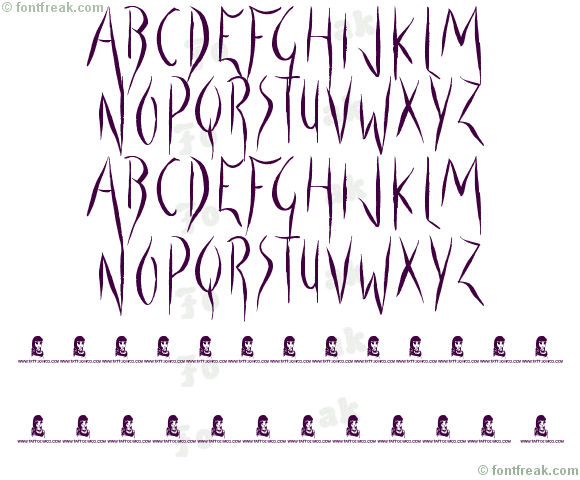
Forbid Nothing
The Forbid Nothing font by Jonathan S. Harris is a striking display typeface that embodies a bold and unconventional aesthetic. This unique font features elongated, sharply pointed letterforms that evoke a sense of edginess and creativity. Its decorative style, characterized by an irregular stroke weight and a high contrast between thick and thin lines, gives it an artistic flair, making it perfect for eye-catching designs. The spacing between letters is intentionally varied, adding to its dynamic appearance and ensuring that each character stands out.
Best suited for a range of creative applications, the Forbid Nothing font excels in projects that require a distinctive and memorable touch. It is ideal for tattoo designs, where its artistic quality can convey personal meanings and individual styles. Additionally, it works wonderfully for music or art event posters, drawing attention and curiosity from potential attendees. This font is also a great choice for branding materials, especially for businesses in the creative or alternative sectors, such as art galleries or tattoo studios. Content creators looking to make a statement in their social media graphics or blog headers will find this font's unique character to be a perfect match.
What truly sets the Forbid Nothing font apart is its ability to blend artistic expression with versatility. Whether used in a bold tattoo design or an impactful poster, it captures attention and leaves a lasting impression. For those looking to enhance their projects, the Forbid Nothing font free download provides an opportunity to integrate this distinctive typeface into their creative toolkit.